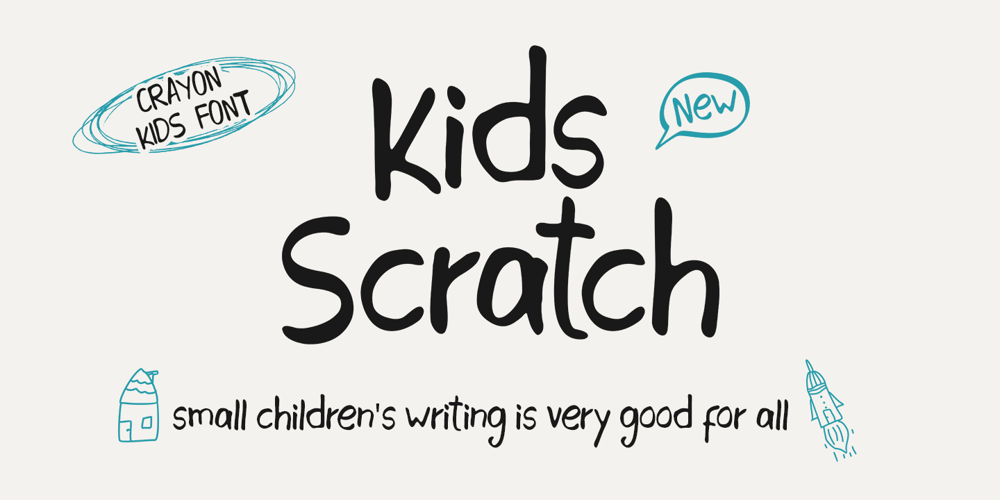
Kids Scratch Font Family was designed by Andri Kurniawan and published by Struggle Studio. Kids Scratch contains 2 styles and family package options. Kids Csrattch is a font made with children’s handwriting.great for cafe websites, restaurant menus, children’s books, art exhibition posters and anything else you fancy.